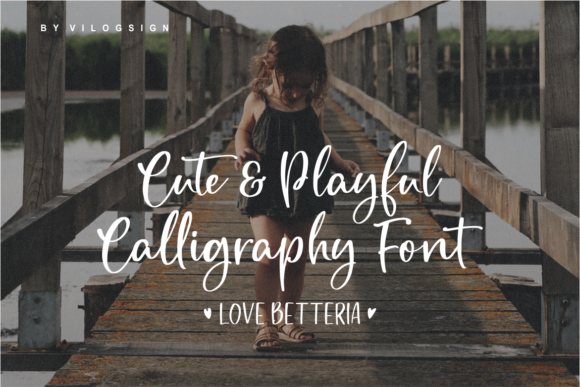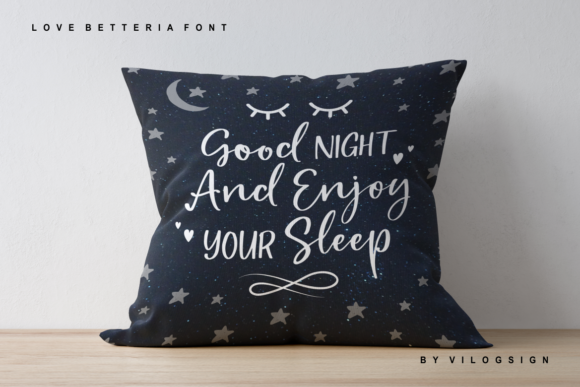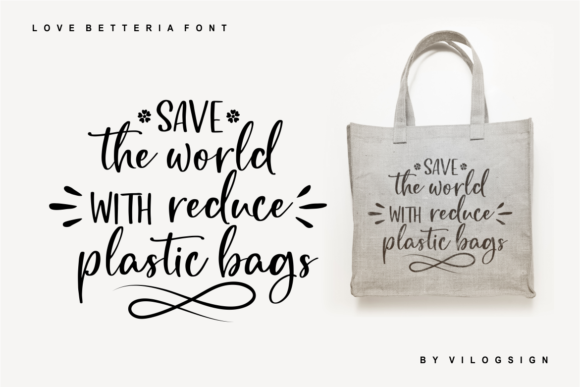
Introduction to Love Betteria Font
Remember that moment when you’re working on a creative project, and you’re struggling to find the perfect font to convey the essence of your design? The one that makes your vision pop, yet remains elegant and sophisticated? That’s where the Love Betteria Font comes in – a game-changing script font that will revolutionize the way you approach typography.
With its unique blend of classic calligraphy and modern flair, the Love Betteria Font is an absolute gem for designers. Not only does it add a touch of sophistication to any design, but its versatility also makes it an ideal choice for a wide range of creative projects, from letterheads and titles to stationery. Plus, with its transparent background, it’s incredibly easy to customize and work with.
Whether you’re a seasoned designer or just starting out, the Love Betteria Font is an invaluable resource that’s sure to elevate your designs to the next level. And the best part? It’s available for a free download, making it an accessible and high-quality design resource that’s within reach of everyone.
Key Features of Love Betteria Font
- High-quality design resource with a unique, modern aesthetic suitable for creative projects.
- Love Betteria Font features a transparent background, allowing for effortless layering and composition.
- Perfect for creative projects, including branding, packaging, and editorial design, where a distinctive and elegant font is required.
Honest Review: Love Betteria Font
I recently stumbled upon the Love Betteria Font while searching for a unique design resource for a creative project. As a designer, I’m always on the lookout for high-quality fonts that can elevate my work.
Here are some aspects that work well for me: ✨ The font is free to download, making it a great option for designers on a budget. ✨ It has a transparent background, which allows for seamless integration with any design element. ✨ The font is highly customizable, offering various styles and weights that can be used to convey different emotions and moods.
- Customizable styles and weights
However, there are some limitations to consider: ⚠️ The font may not be suitable for very large or complex projects due to its relatively small character set. ⚠️ Some users may find the font’s unique style to be too experimental or unconventional for certain design applications.
Overall, I’m impressed with the Love Betteria Font’s potential to add a touch of creativity to my designs. While it may not be the best fit for every project, it’s definitely a valuable design resource to have in my toolkit.
The Love Betteria Font is a high-quality, free download design resource ideal for creative projects that require a unique and stylish touch. This font features a transparent background, making it perfect for adding text overlays to your designs.
To use the Love Betteria Font in PowerPoint or Word, simply download and install the font file on your computer and select it as your font option in your presentation or document. This font is perfect for creating engaging presentations and reports.
Experiment with different font sizes and colors to add visual interest to your designs. Use the transparent background feature to create stunning text overlays and graphics.
The Love Betteria Font is perfect for a variety of creative projects, including social media graphics, blog posts, presentations, and reports. Its high-quality design and transparent background make it a valuable design resource for any project.